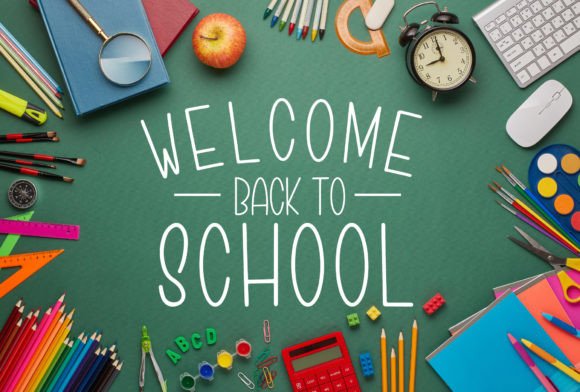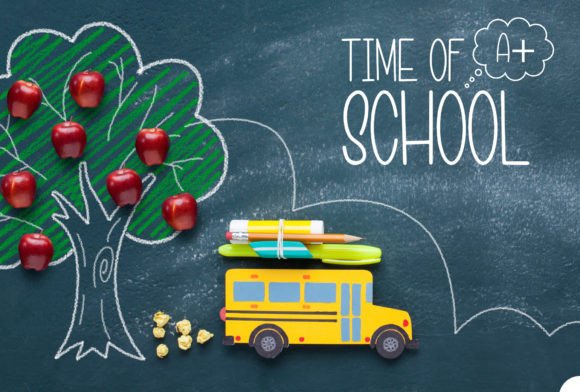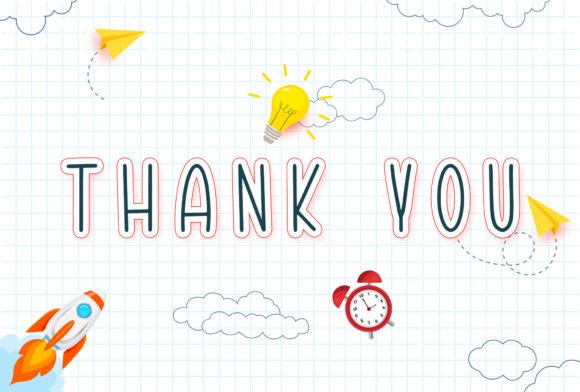
Introduction to Apple Teacher Font
Apple Teacher is a display font that looks thin, cute, and orderly.
This font is perfect for children-themed designs It can help teachers create exercises for students, logos, branding, packaging, short name, and crafty DIY projects.